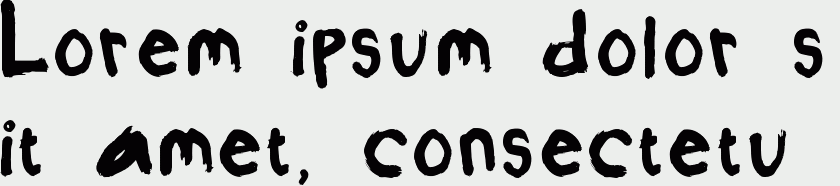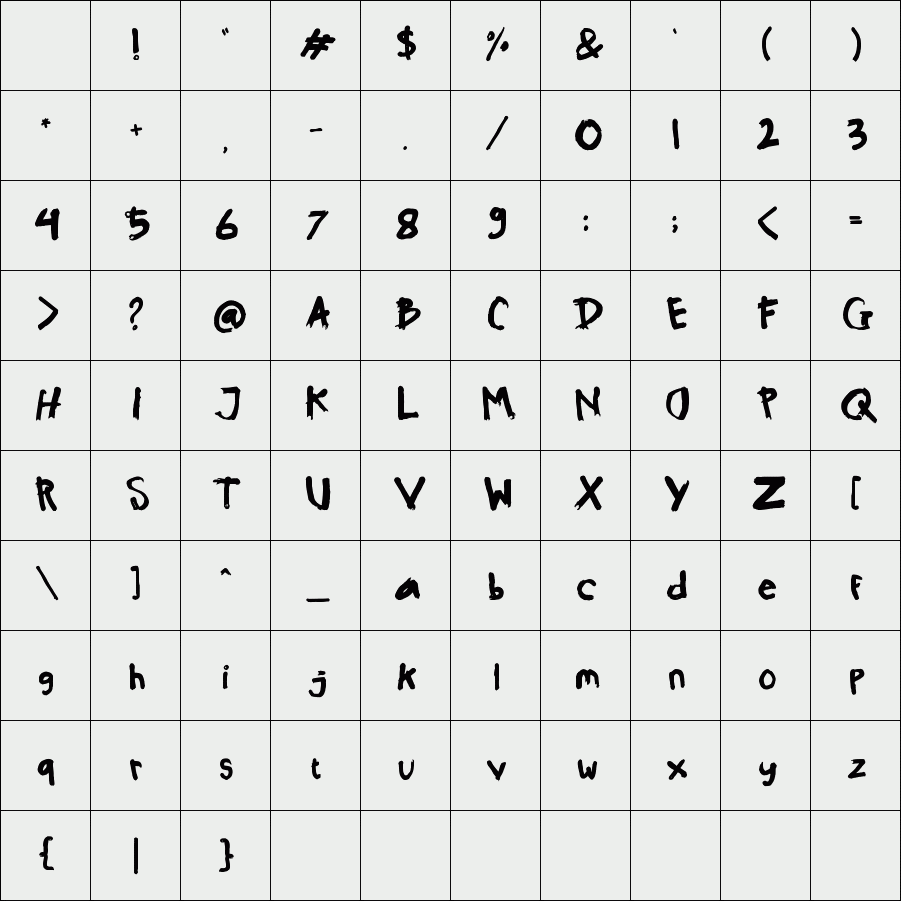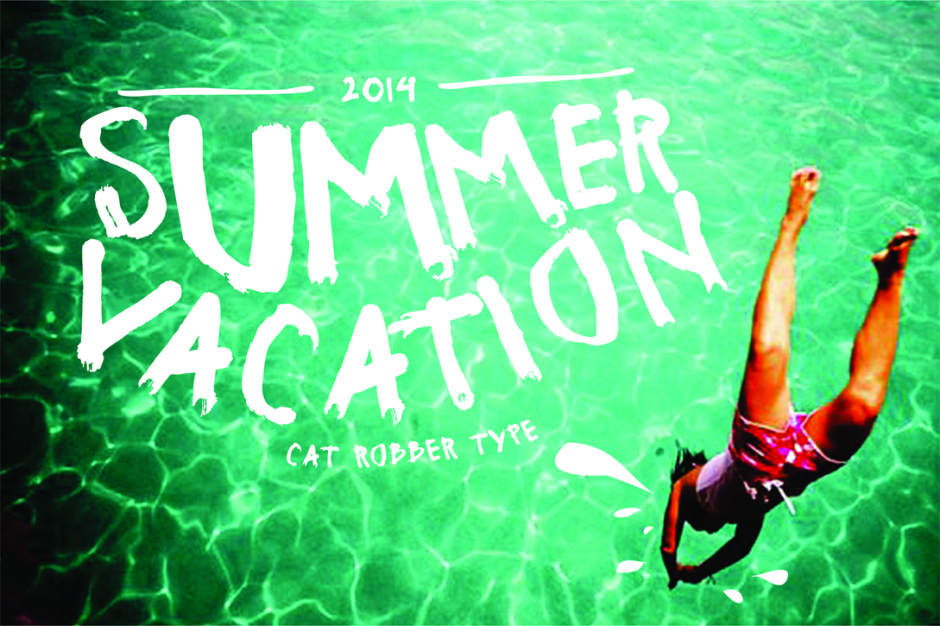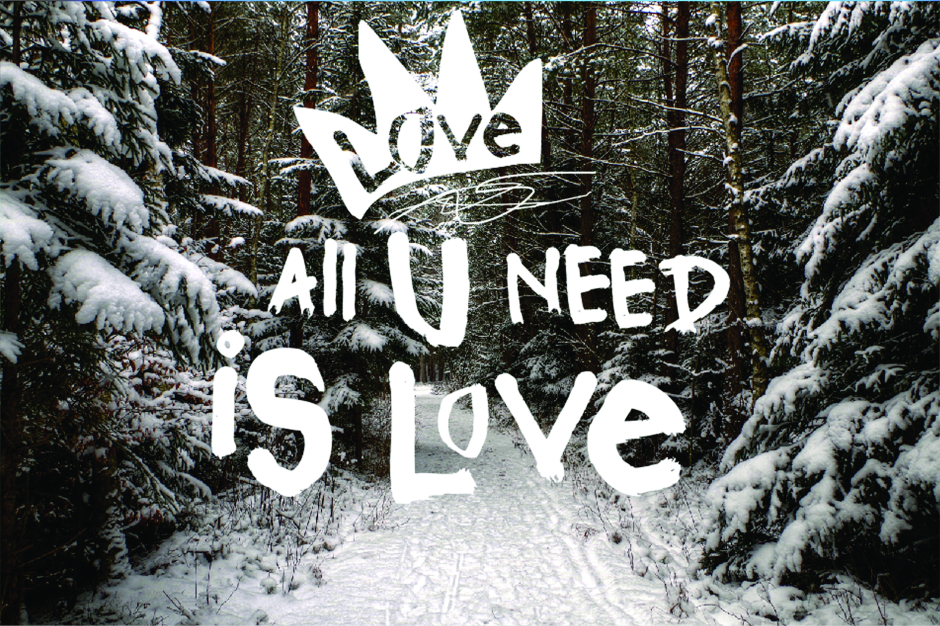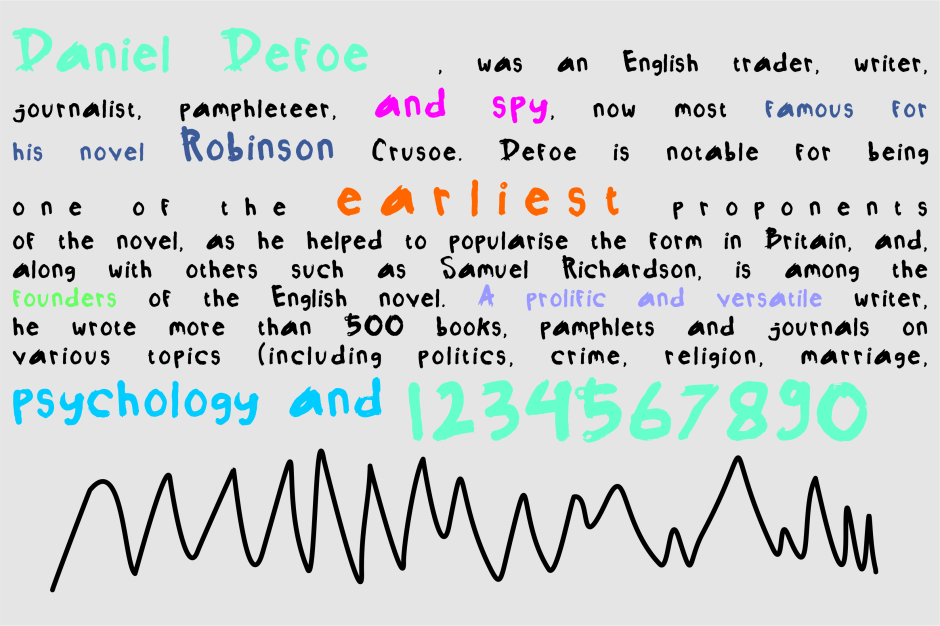
basqi
basqi is a typeface hand draw, where the elements of line markers graffiti is
very pronounced indeed. irregular letter sizes, deliberately wanted to give
the atmosphere a hand draw, it is suitable for design tshirt, books,
or other design
Designer: boiem hanafiyah